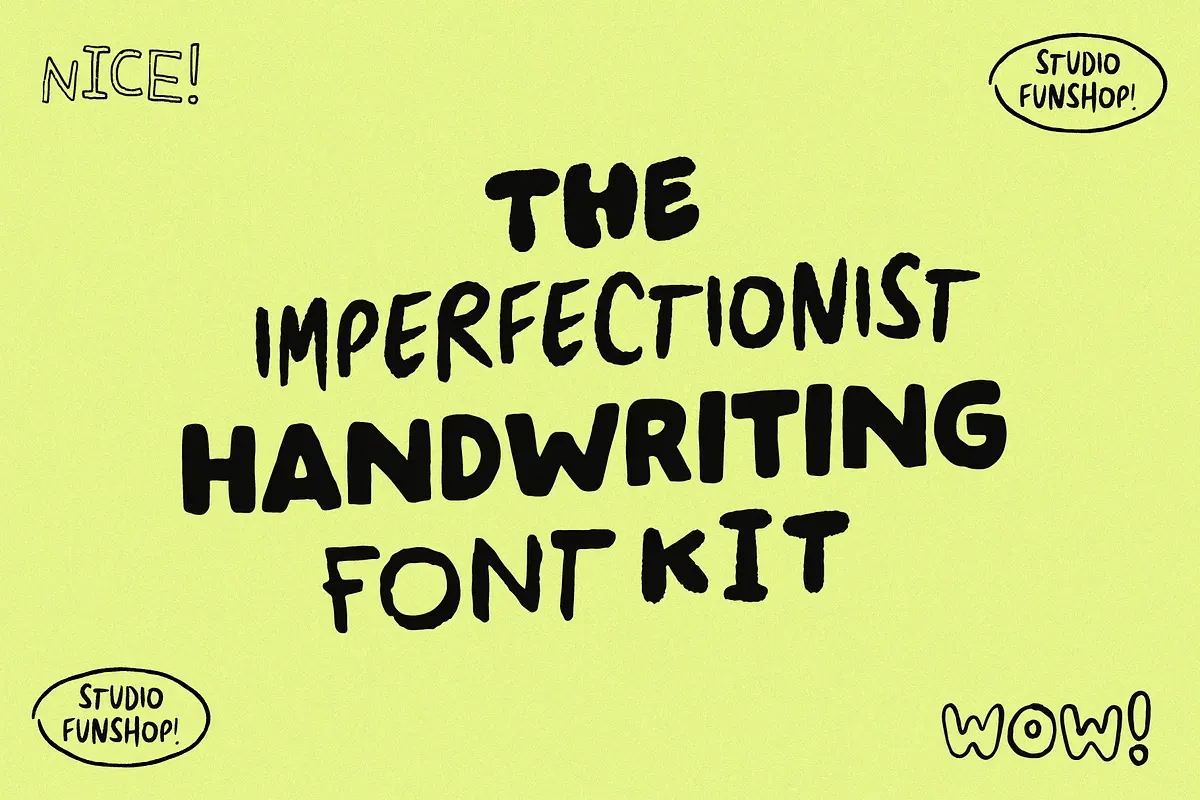
Imperfectionist Handwriting Font Free Download is a playful and unique script typeface designed to capture the beauty of imperfect, natural handwriting. Featuring irregular strokes and quirky letterforms, this font adds a personal, authentic touch to any design. Perfect for creating logos, invitations, social media graphics, branding, and more, Imperfectionist Handwriting Font Free Download gives your projects a casual, organic feel. Whether you're designing for a handmade brand, a creative campaign, or a fun event, this font brings a sense of warmth and personality. Explore its charming style in personal projects before purchasing a commercial license and add character and creativity to your designs with this beautifully crafted handwritten font.